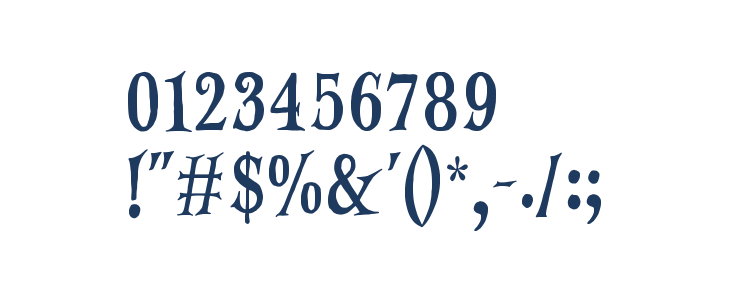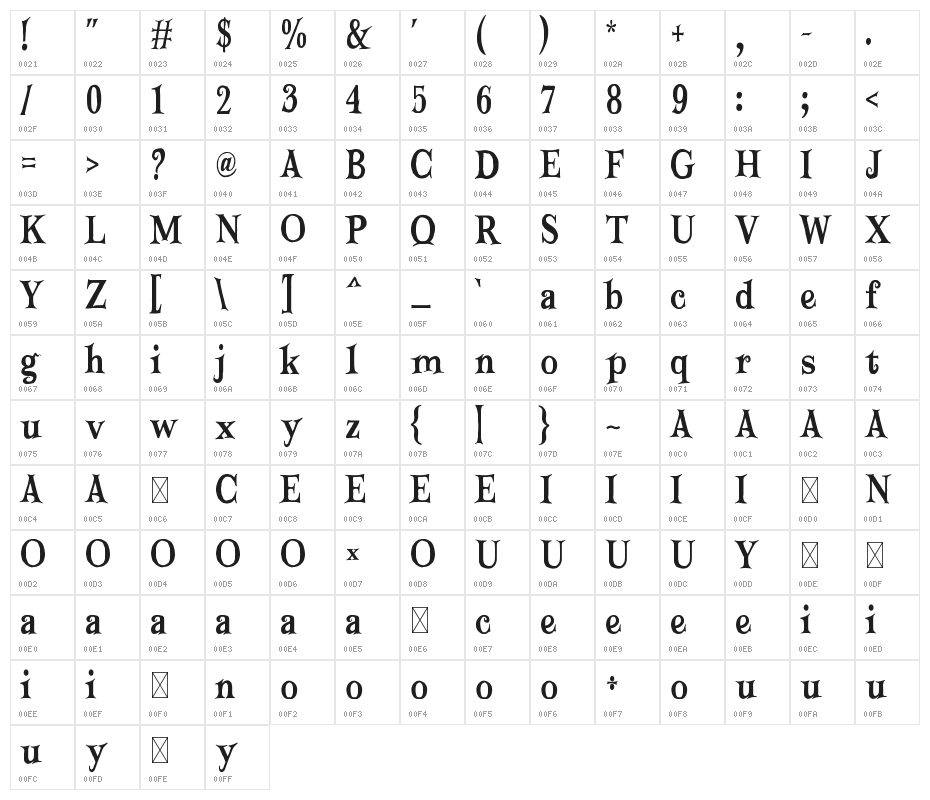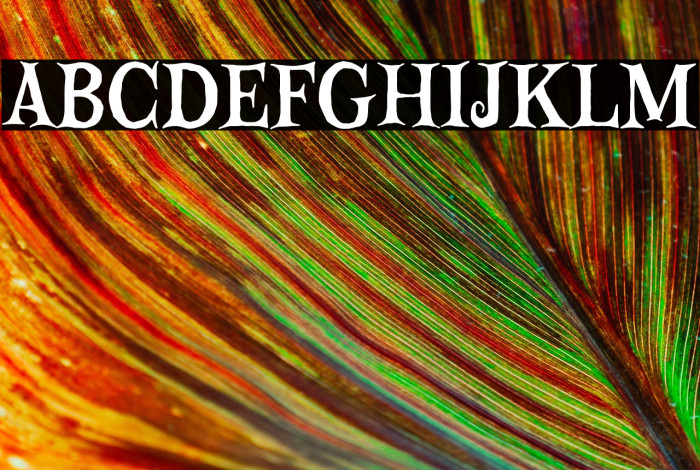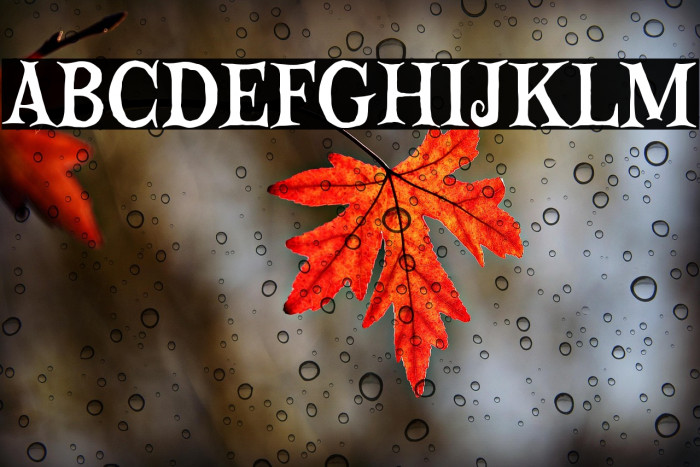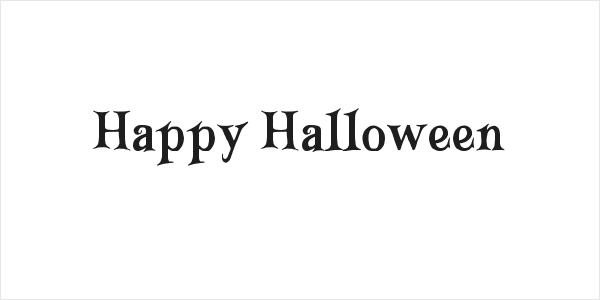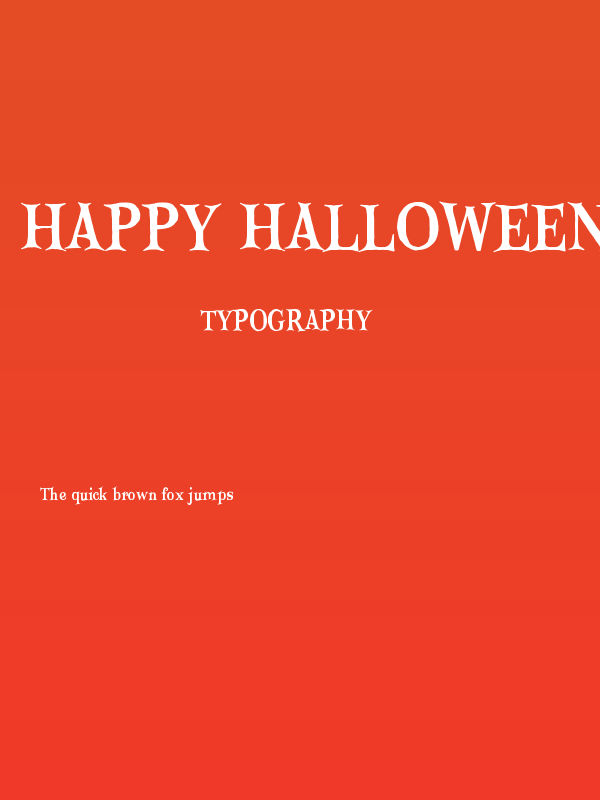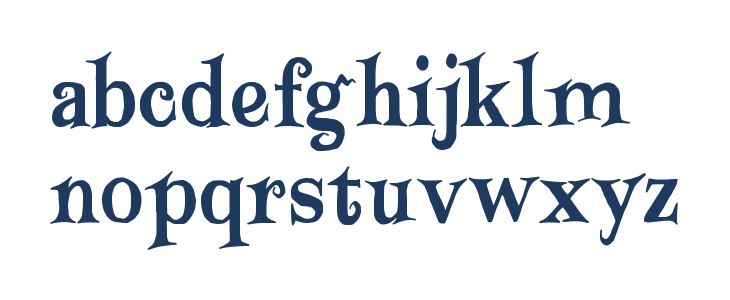
Happy Halloween Font
Happy Halloween Description
This font features a spooky, playful design with uneven, jagged edges that evoke a sense of mystery and Halloween-themed fun. The uppercase letters are bold and dramatic, with exaggerated serifs that add a touch of whimsy. Lowercase letters maintain the same playful style, with some characters featuring unique curls and twists. The numbers are equally bold, with a slightly uneven baseline that enhances the font's quirky personality. Special characters are designed to match the overall theme, making it perfect for festive and themed projects.